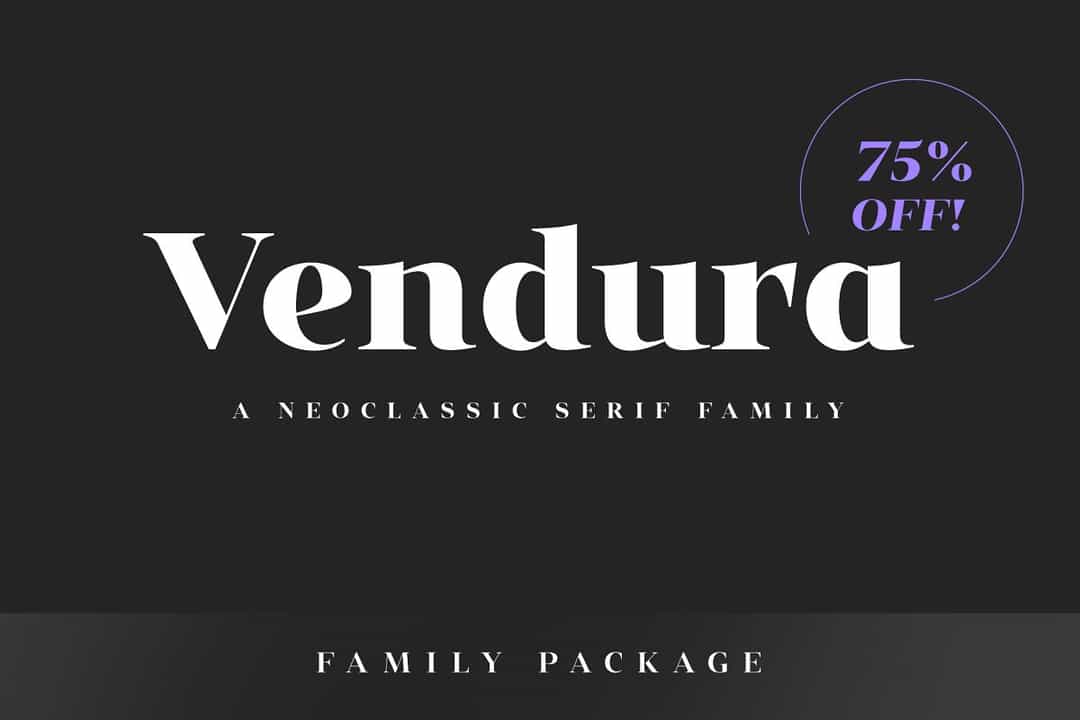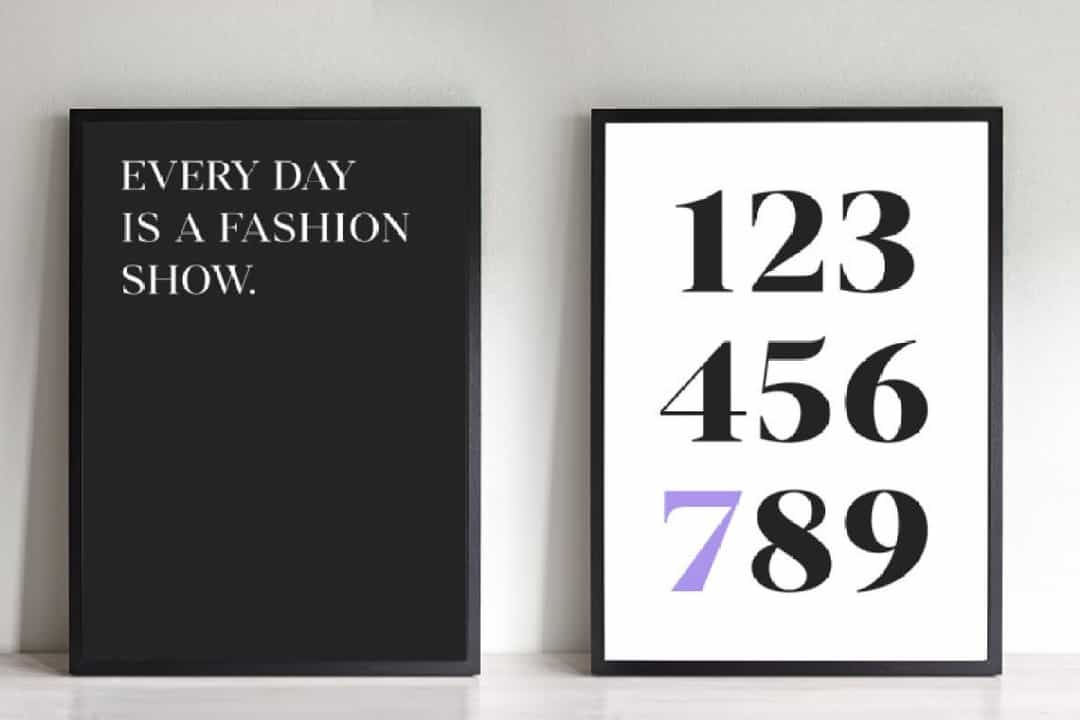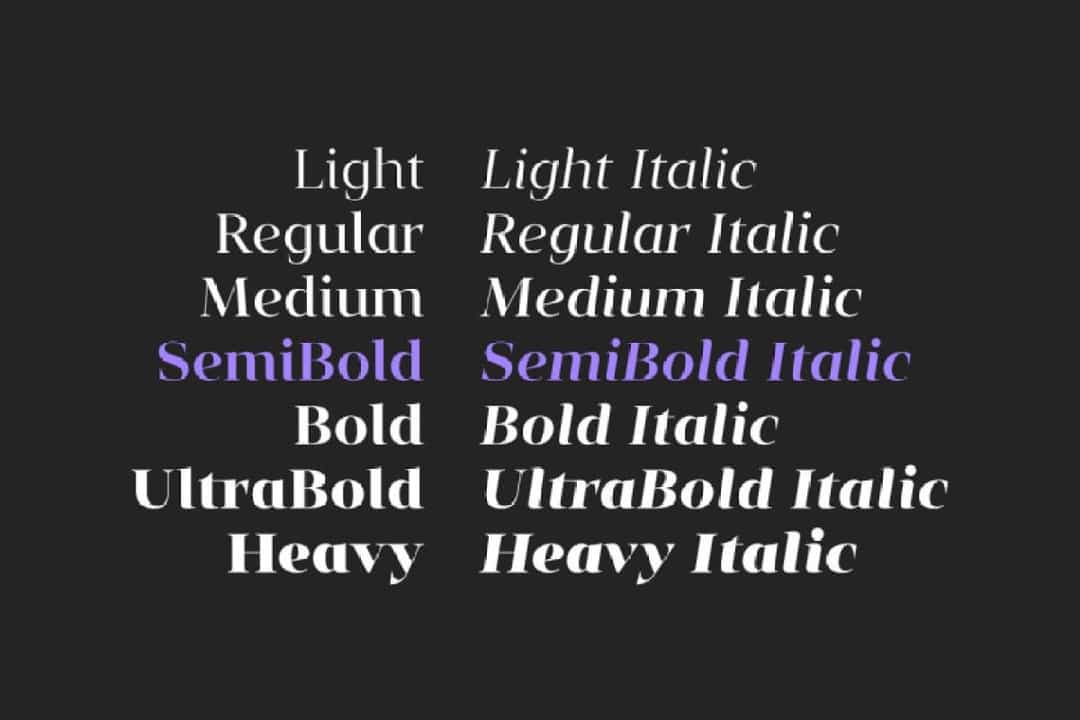
Vendura is a simple yet elegant font created for use in a range of settings and formats both, on the screen and in print, including text and display purposes, headings, logos, and more. This family is a seriffed one with a modern touch to it; as it is based on the popular high contrast one typefaces of the late 1700’s and early 1800’s, Vendura has certain design elements integrated into its design to give it a more modern flair.